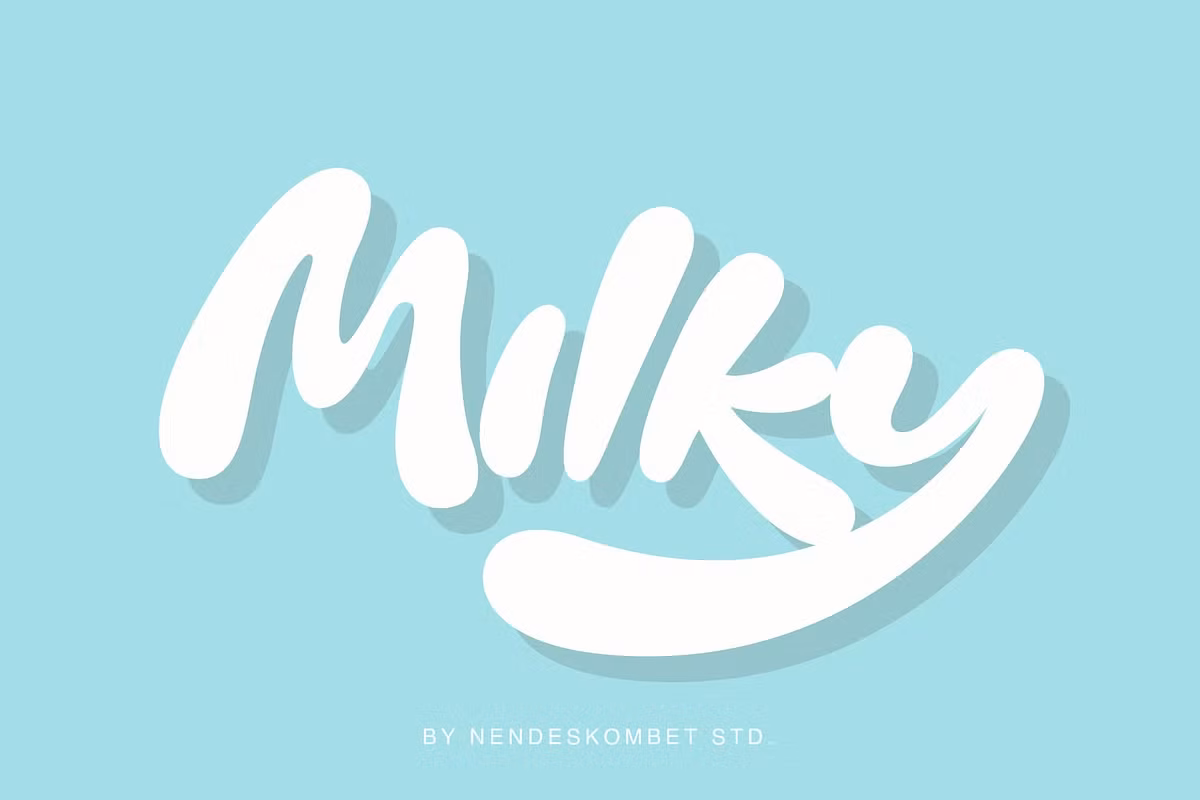
Milky - a Bright and Bubbly Font Free Download
Bring fun and positivity to your designs with Milky – A Bright and Bubbly Font Free Download, a cheerful typeface full of playful charm. You need to purchase this font for commercial use. However, you can test it in personal or demo projects using Milky – A Bright and Bubbly Font Free Download. With its rounded edges and joyful personality, this font is perfect for kids’ projects, product packaging, greeting cards, social media, and branding that needs a lighthearted touch. Designers love its friendly vibe and standout readability. Download Milky – A Bright and Bubbly Font Free Download today and make your designs pop with happiness!